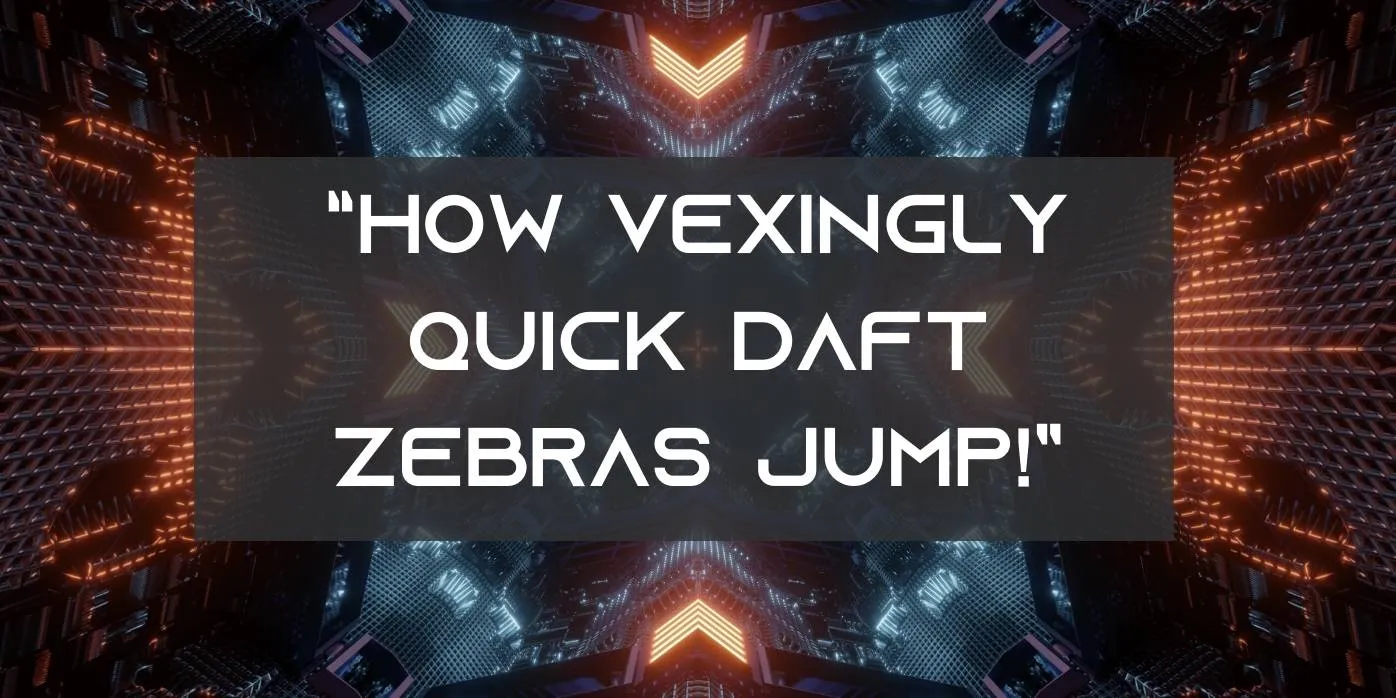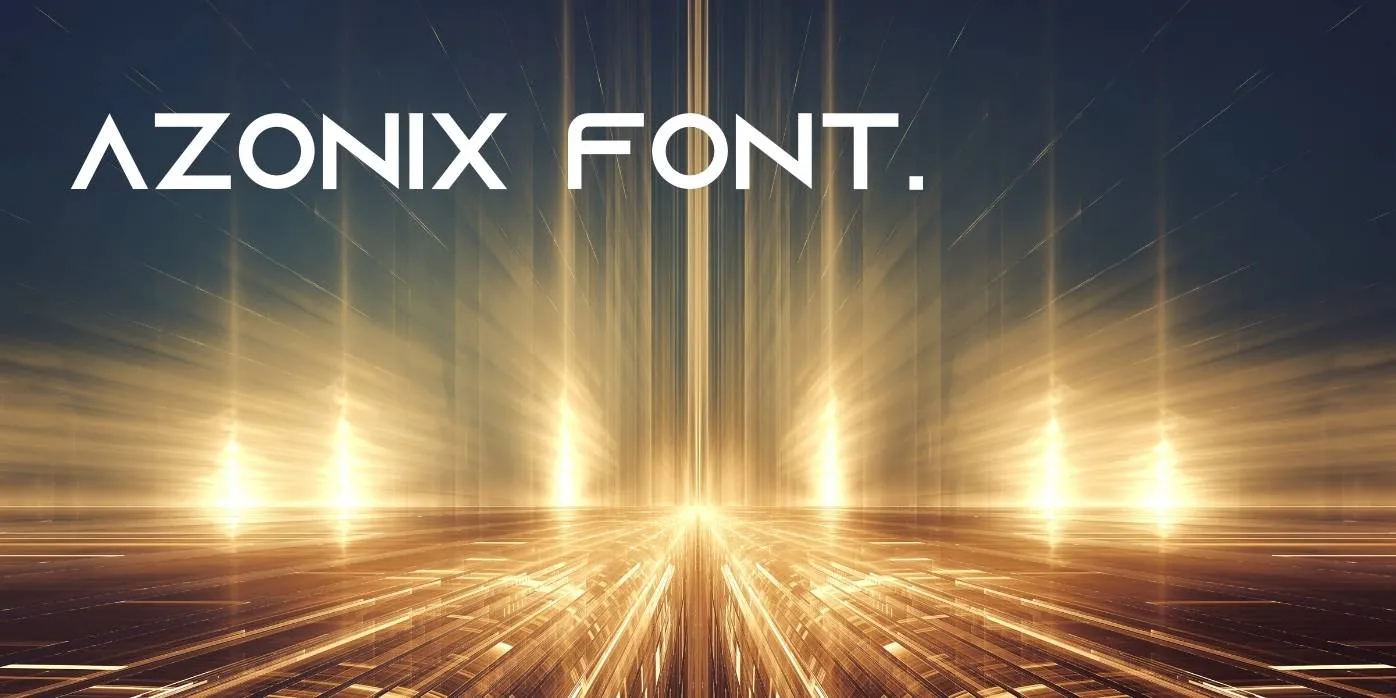
Azonix Font
Today we present a stunning and reputable font family that is most popular in the designing industry named Azonix Font. It belongs to the Sans-Serif typeface. This staggering font family was designed by a well-known and brilliant designer named MixoFX. This classy typeface is available in five unique styles.
Its copy and Paste function is more useful. This soft-looking font is best for the CSS family. If you will use this font family with the pairing of Univers Font you will achieve more fascinating results. Because of its unique styles, this font is best suitable for different types of graphic designs.
There are also some alternative fonts are available that are similar to this cozy typeface like Gotham Font. Its stylish and unique lettering makes it more popular. Some of its commonly used letters are symbols, Numerals, Both uppercase and lowercase, and others more. Its features are soo much clean and clear.